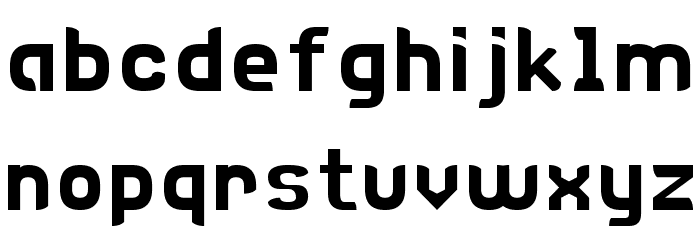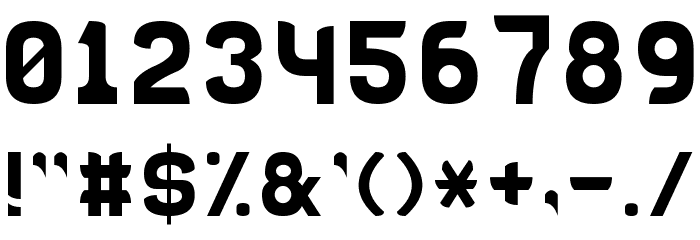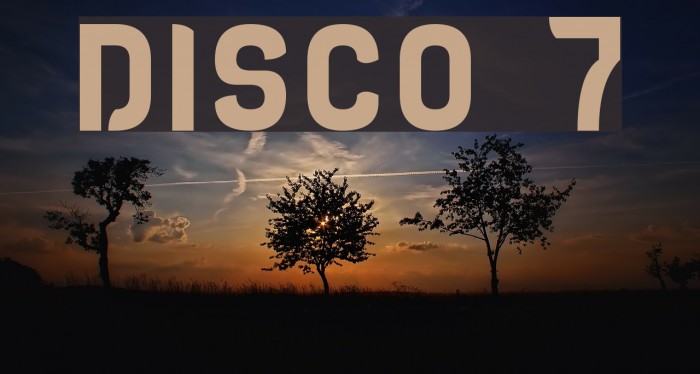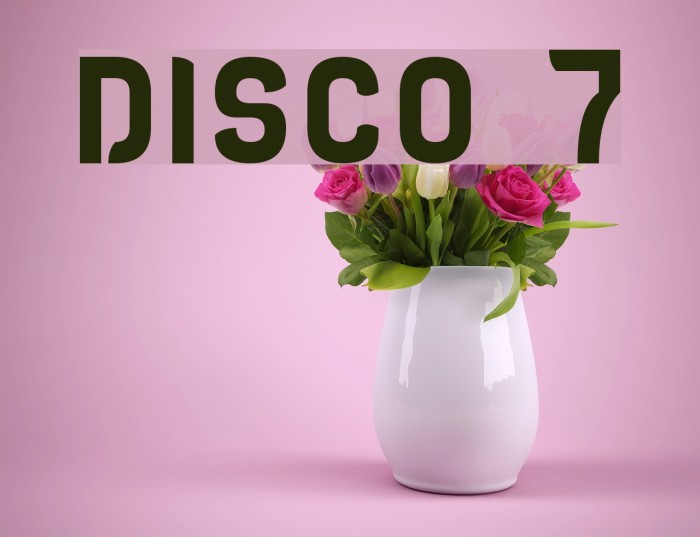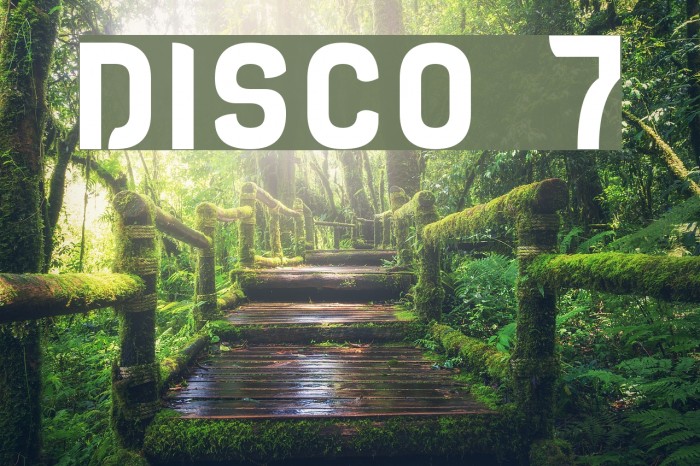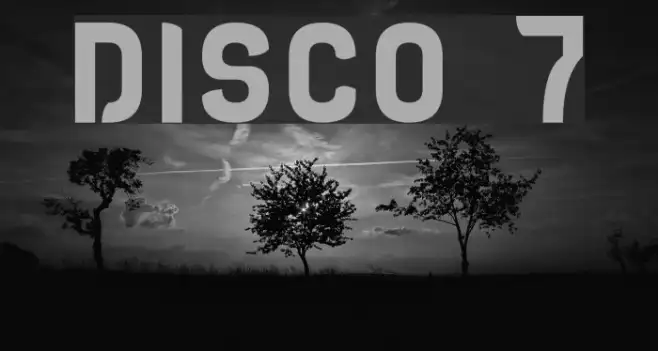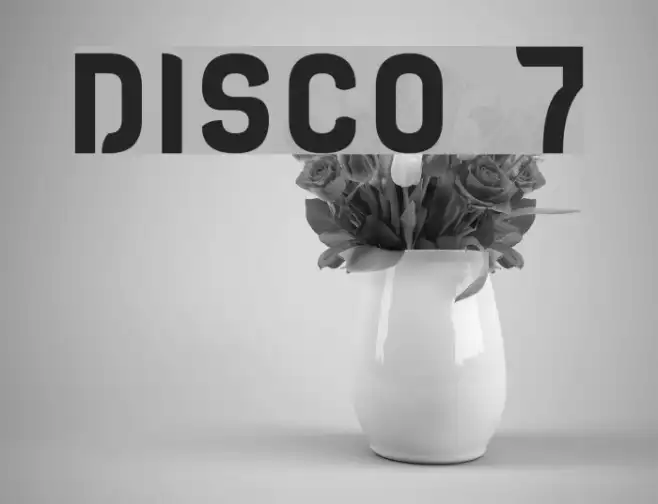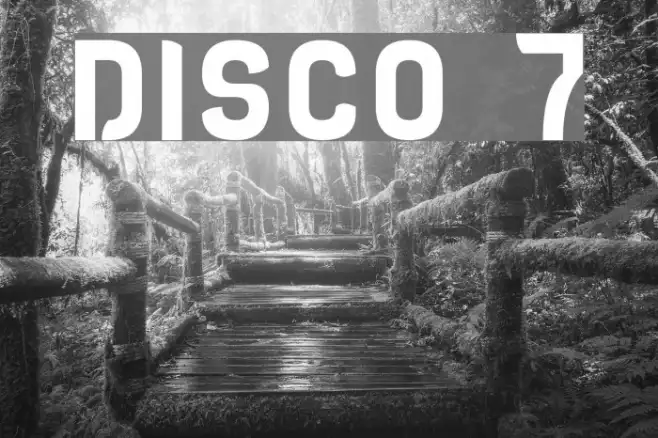
DISCO 7 Font
This font features a bold and modern design with a strong geometric influence. The uppercase letters are characterized by their solid, block-like appearance, while the lowercase letters maintain a consistent style with rounded edges and a slightly condensed form. The numerals are equally bold, ensuring readability and a cohesive look across all characters. Special characters are designed with the same boldness, making them stand out effectively. This font's overall aesthetic is clean and contemporary, suitable for various design applications.
A bold, modern font with geometric influences and strong readability.
- Proposed Projects: Ideal for branding, posters, headlines, and any project requiring a modern and impactful typeface.